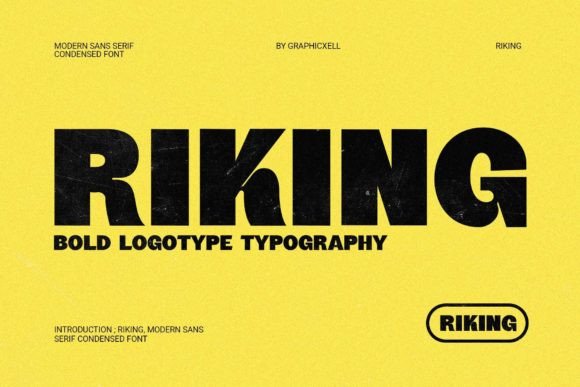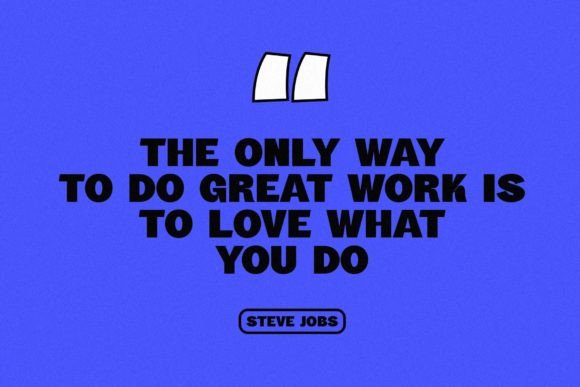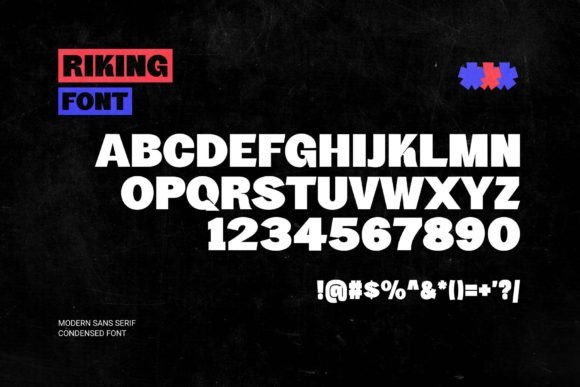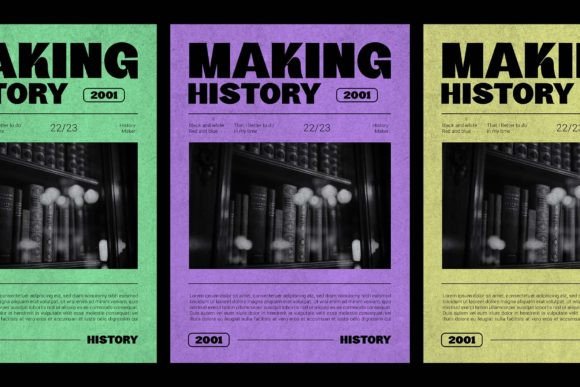
Riking Font: Bold Sans Serif for Modern Logo Design & Headlines
About the Riking Font
Step up your design game with Riking Font, a font that exudes confidence and style. Riking font is a sleek and contemporary condensed sans-serif typeface that embodies modern simplicity and sophistication. With its clean lines and compact design, Riking is the perfect choice for projects that demand a minimalist and stylish aesthetic. Whether you’re designing logos, headlines, or digital interfaces, Riking font delivers a sharp and professional look that makes a bold statement.
Riking excels in headlines, short text blocks, and branding applications where a strong, modern aesthetic is desired. Its condensed nature makes it ideal for logos, posters, and even short impactful packaging copy. However, its condensed design makes it less suitable for body text or lengthy paragraphs; readability suffers at smaller sizes. Avoid using Riking in user interfaces requiring extensive text.
Its personality is bold and sophisticated, yet maintains a clean, contemporary feel. Brands seeking to project authority, innovation, or a minimalist approach will find Riking particularly effective.
Pairing Riking with a warmer serif like Playfair Display for body text adds visual balance and contrast. For a more modern pairing, consider a geometric sans-serif like Futura for supporting text, enhancing the overall contemporary feel. Alternatively, a delicate script font can create an interesting juxtaposition, offering elegance to complement Riking’s boldness.
Riking Font Usage Examples
Riking Font Example